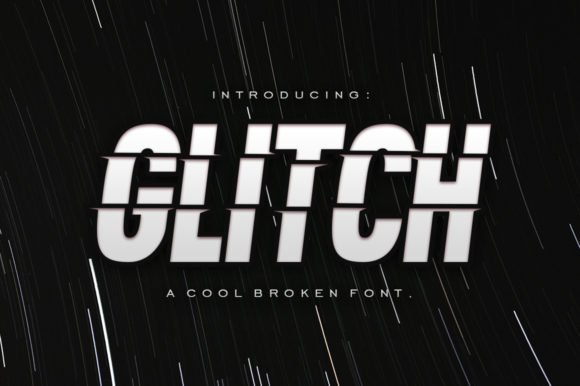
Unleash Your Creativity with the Glitch Font
You’ve spent hours brainstorming the perfect design concept, only to find yourself stuck on the font. The words won’t flow, the letters won’t align, and the overall aesthetic just doesn’t seem to pop. But what if you could add a dash of edginess to your design, making it stand out from the crowd? Enter the Glitch Font, a display font that’s equal parts quirky and classy.
Designed to resemble a sharp stroke, the Glitch Font is perfect for a wide range of creative projects. From company names to movie titles, and from vehicle repair shops to squad names, this font is sure to make a statement. As a designer, you know how valuable it is to have a versatile font in your arsenal, and the Glitch Font delivers. Its unique style and playful vibe make it an instant favorite among designers looking to add some excitement to their work.
Glitch Font Key Features
- Font Family: Glitch Font comes in a single font family, making it easy to use across various designs.
- Unique Characteristics: The Glitch Font features a distressed, glitchy aesthetic, with irregular shapes and distorted letters, adding a touch of edginess to designs.
- Character Set: The font includes a wide range of characters, including uppercase and lowercase letters, numbers, and punctuation marks.
Designer Review: Glitch Font
Overall, I’d say the Glitch Font is a fun and creative choice for projects that need a bit of a retro, techy vibe. ✨ The font’s distressed, glitchy aesthetic can add a lot of personality to a design, and it’s particularly well-suited for projects in the tech or gaming space.
- Unique aesthetic that sets it apart from more common fonts
- Works well for titles and headings, where the bold, distressed look can really make an impact
- Available in a range of weights and styles, which can be helpful for achieving the right level of grit and texture
- Can be difficult to read in large blocks of text, due to the font’s busy, glitchy design
- May not be suitable for projects where legibility is a top priority (e.g. body text, instructional materials)
- Some users may find the font’s aesthetic too gimmicky or over-the-top, which can be a turn-off
- ⚠️ Limited support for certain languages or character sets, which can be a problem for projects that need to cater to a global audience
Overall, I’d recommend the Glitch Font for projects where a bold, attention-grabbing aesthetic is a top priority. Just be sure to use it thoughtfully and in moderation, and be aware of its limitations. With a bit of restraint, this font can be a real showstopper!
The Glitch Font is commonly used in digital art, graphic design, and music visualizations. It adds a unique and eye-catching effect to text, making it perfect for titles, headings, and quotes. It’s also used in video games, anime, and manga to create a futuristic and high-tech look.
To get the most out of the Glitch Font, experiment with different font sizes, colors, and styles. You can also combine it with other design elements, such as bold lines, neon colors, and abstract shapes, to create a unique and striking visual effect.